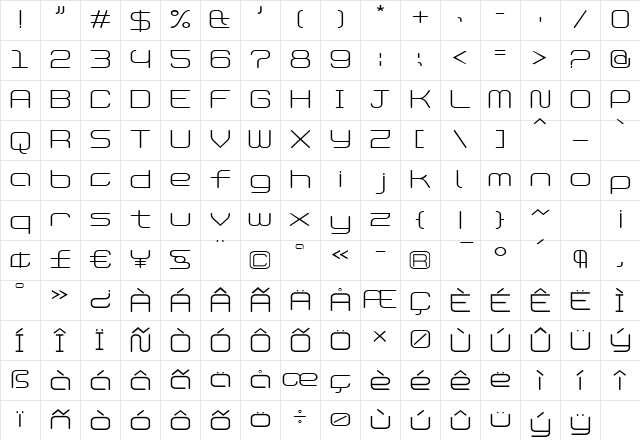
PhantomLight Regular
Design Context for PhantomLight
PhantomLight is a composed and adaptable typeface that performs quietly and consistently across a wide range of design contexts. Its slender proportions lend an understated elegance to any composition.